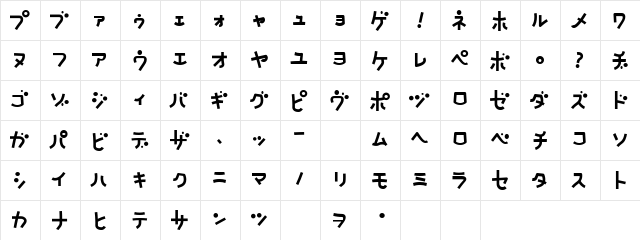
NatsumikanKAT Regular
NatsumikanKAT is a composed and adaptable typeface that performs quietly and consistently across a wide range of design contexts.